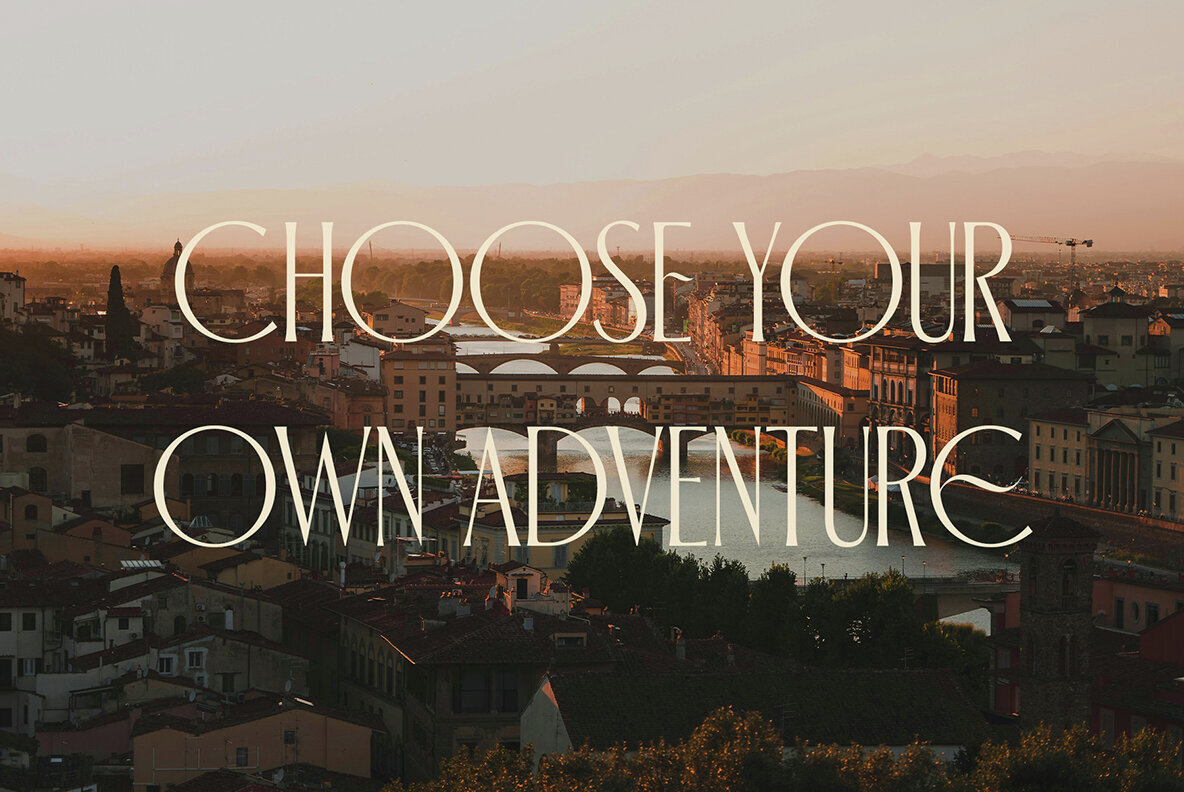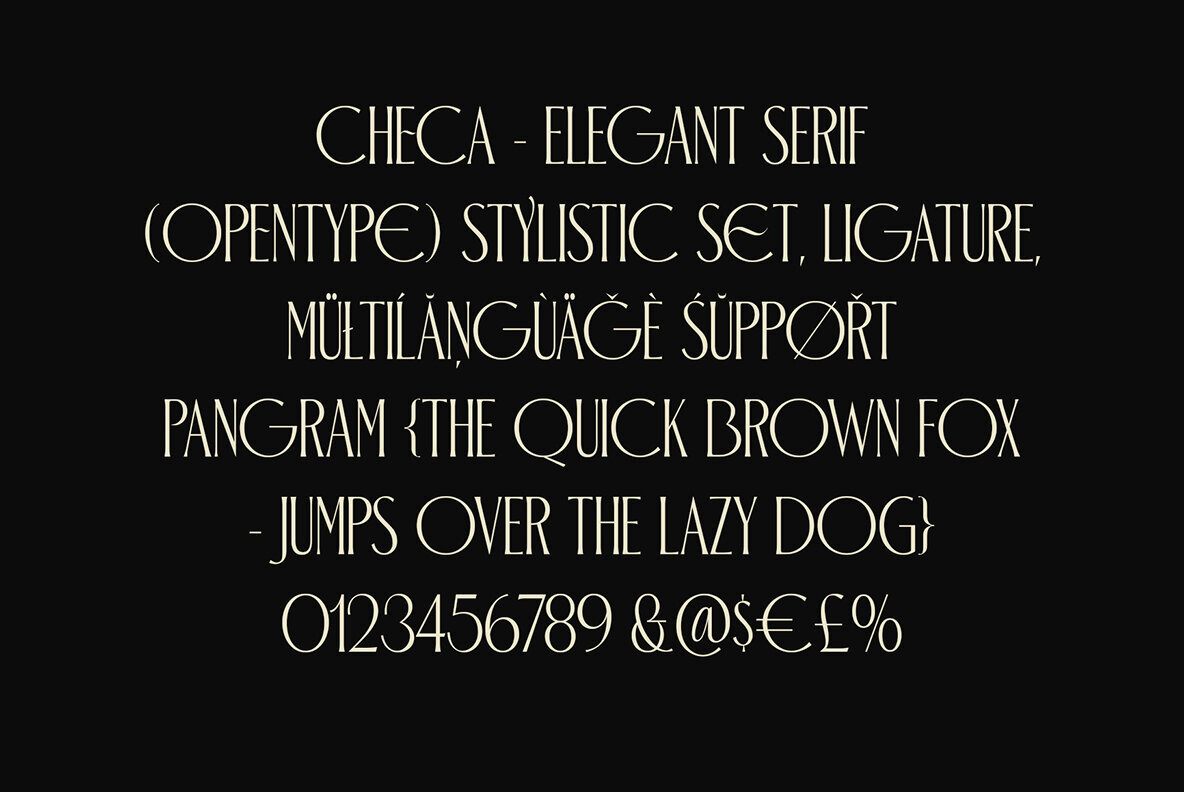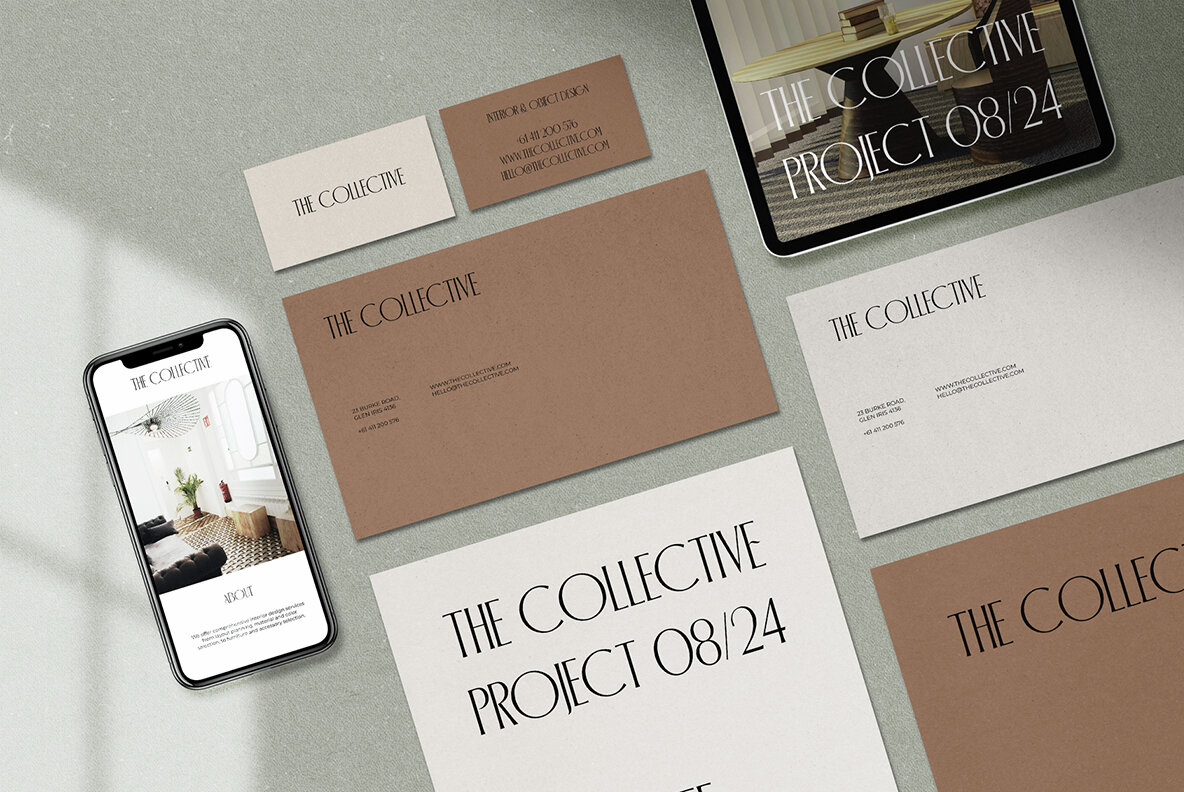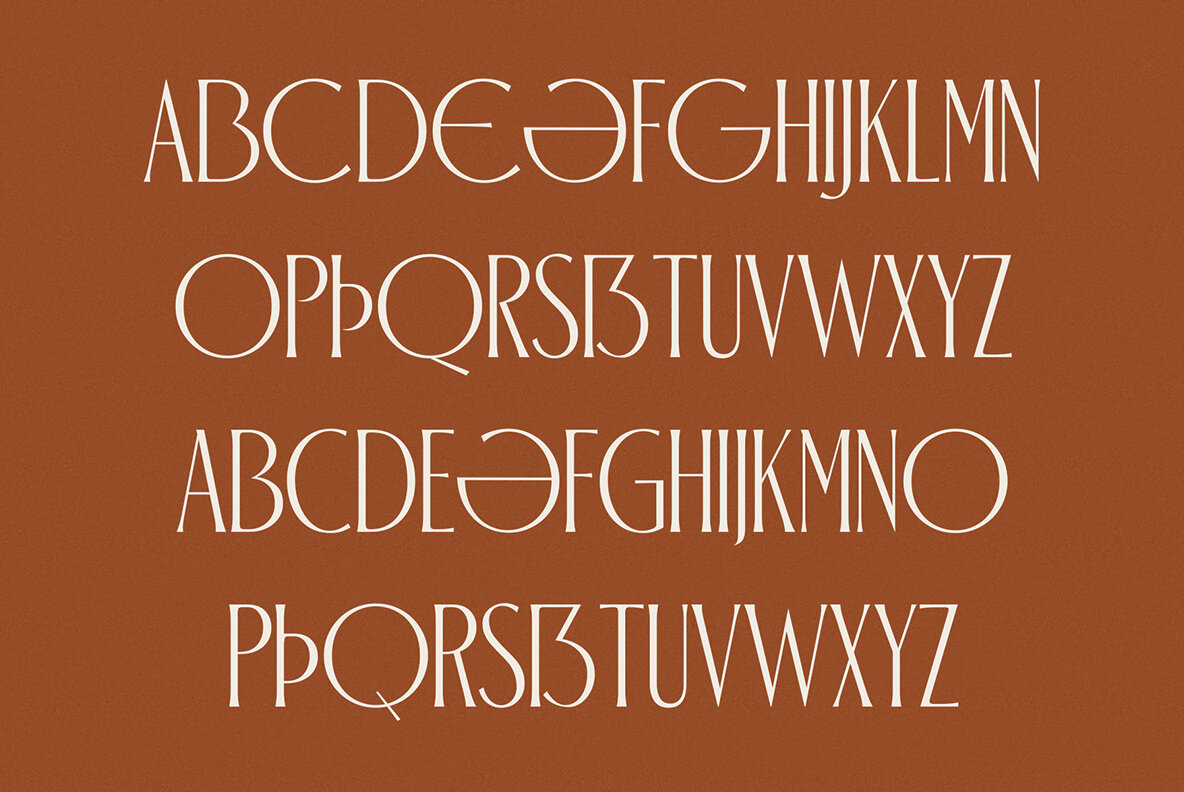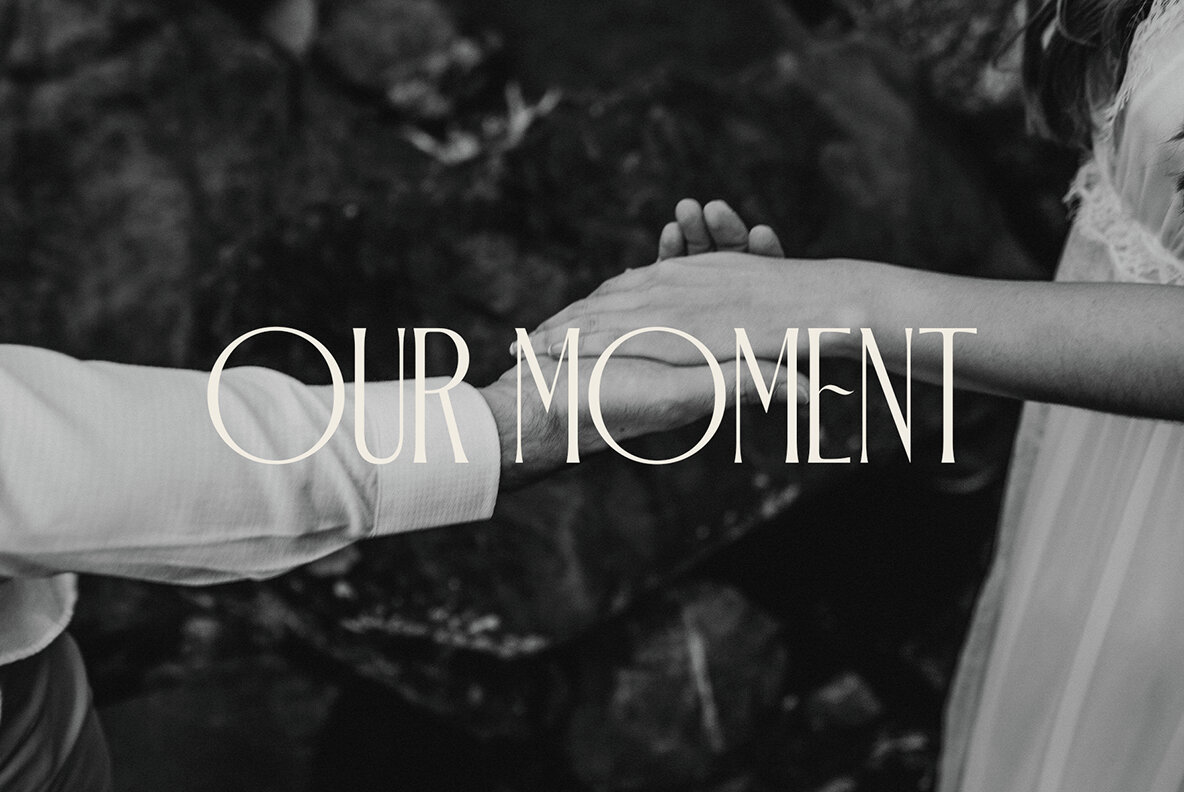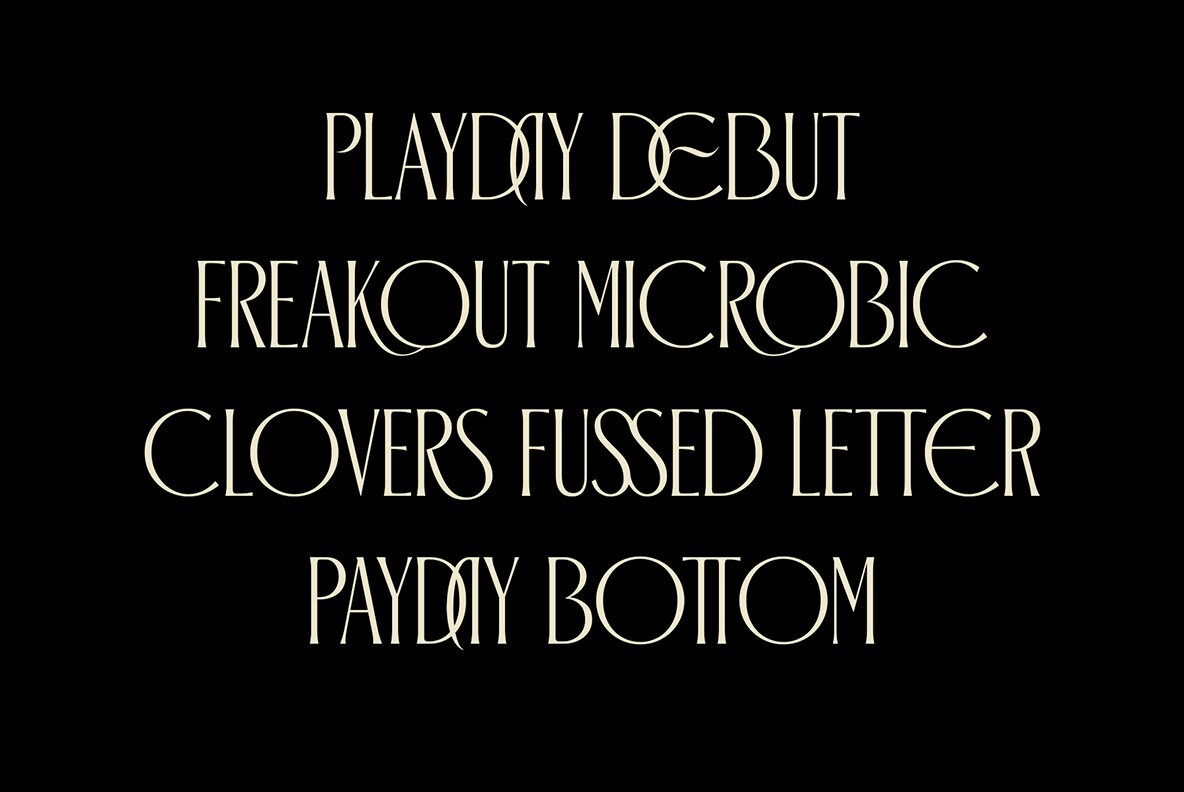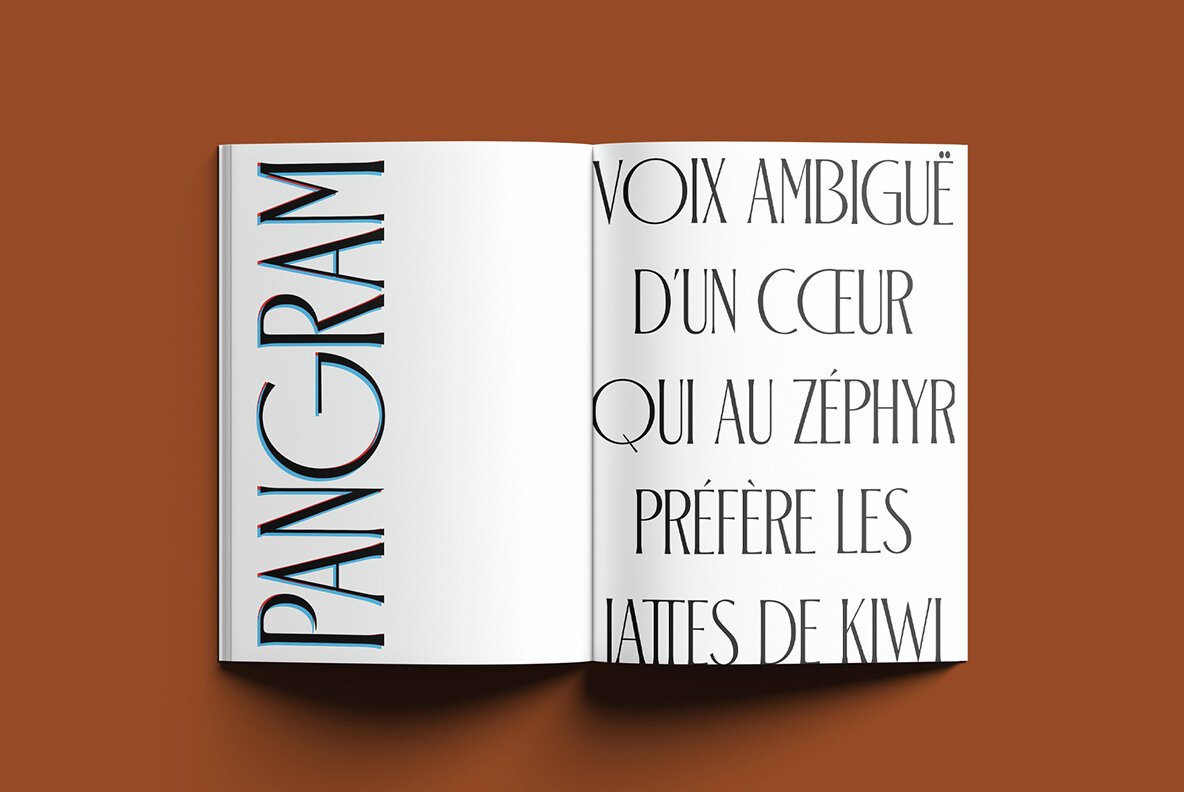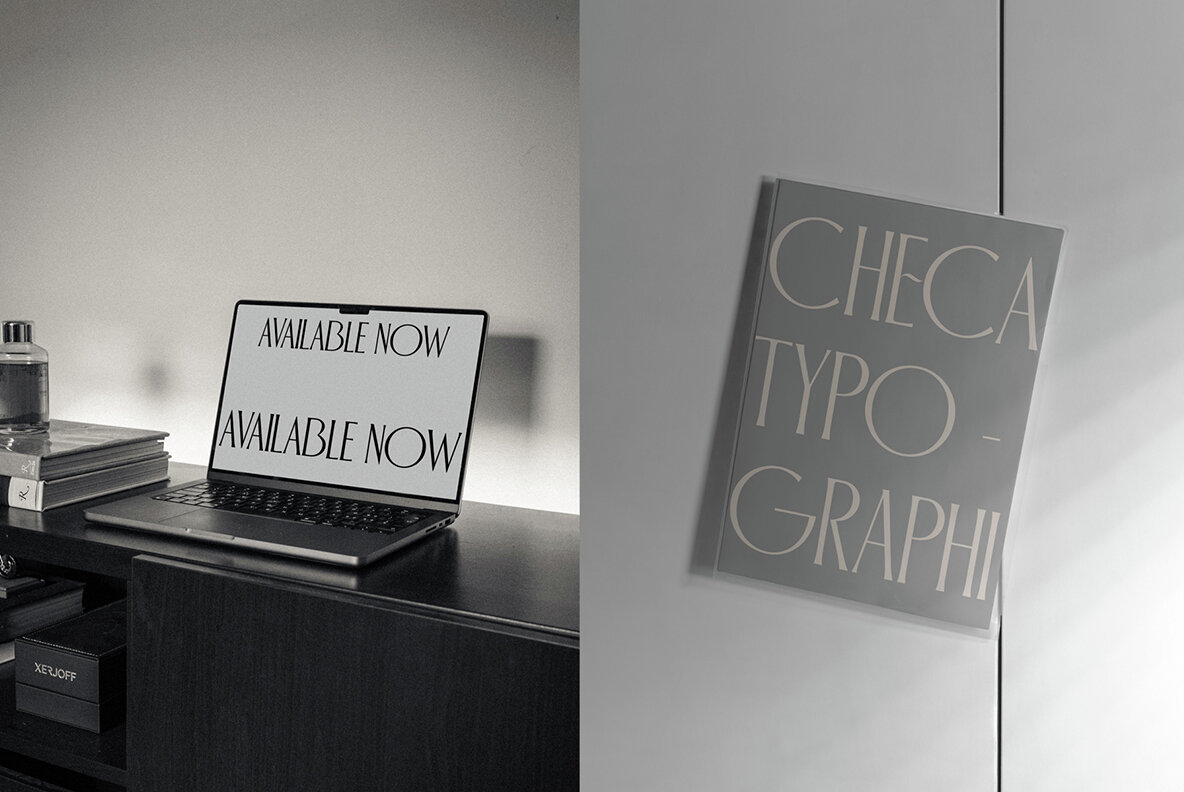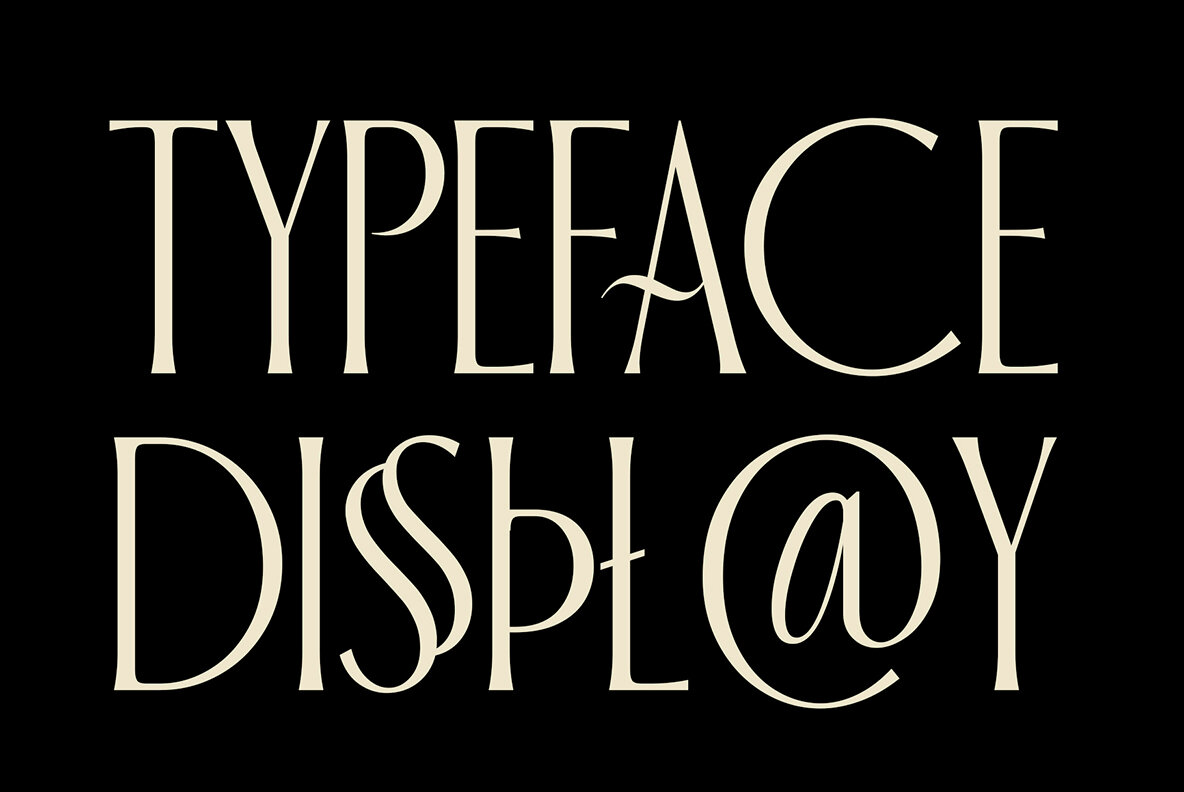
ED Checa Font
ED Checa Regular
Checa is a serif display font that exudes classic and elegant charm. With OpenType features such as ligatures, stylistic sets, and multilingual support, this font provides great flexibility in various design projects. This font is perfect for your creative projects such as Logotype, printed quotes, invitations, cards, headers, letterheads, Apparel, Web design, magazines, books, etc.